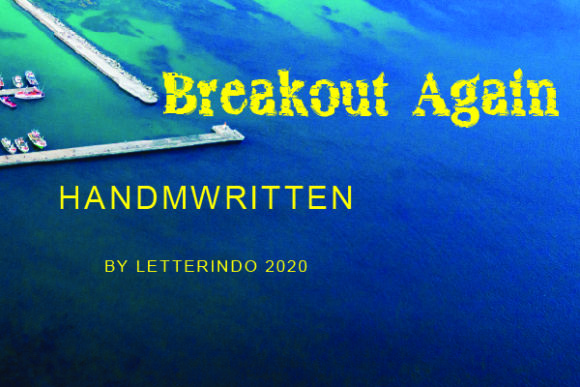
**Introducing Breakout Again: The Font That Commands Attention**
Are you ready to elevate your designs to new heights and make a lasting impression on your audience? Look no further than Breakout Again, the display font that exudes boldness, beauty, and versatility.
Breakout Again is the brainchild of the renowned font designer, johndesign540, who has poured his heart and soul into creating a typeface that empowers designers to unleash their creativity and captivate their viewers.
**Unleash Your Inner Creative Genius**
With its striking and distinctive character, Breakout Again is the perfect choice for logos, branding, headlines, posters, and any other design project that demands attention. Its ability to effortlessly complement a wide range of design aesthetics makes it a must-have in any designer's toolkit.
**A Font That Speaks Volumes**
Breakout Again is not just another font; it's an extension of your creative vision. Its bold strokes and sharp angles convey strength, confidence, and a touch of playfulness that is sure to resonate with your audience.
Whether you're crafting a logo for a cutting-edge tech company or designing a poster for a high-energy event, Breakout Again has the power to transform your words into unforgettable visual statements.
**Ignite Your Designs with Breakout Again**
Are you tired of settling for平凡fonts that fail to leave a mark? With Breakout Again, you'll experience the transformative power of a font that commands attention, ignites creativity, and makes a lasting impression.
**Key Features:**
* Bold and beautiful display font
* Perfect for logos, branding, headlines, and posters
* Complements a wide range of design aesthetics
* Empowers designers to unleash their creativity
* Commands attention and makes a lasting impression